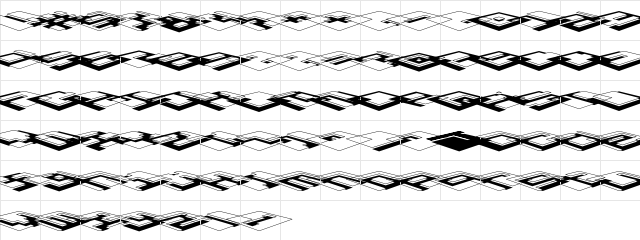
Complete 26Floor Regular glyph index. Displaying only characters natively supported by 26Floor Regular font.
26Floor is a composed and adaptable typeface that performs quietly and consistently across a wide range of design contexts.